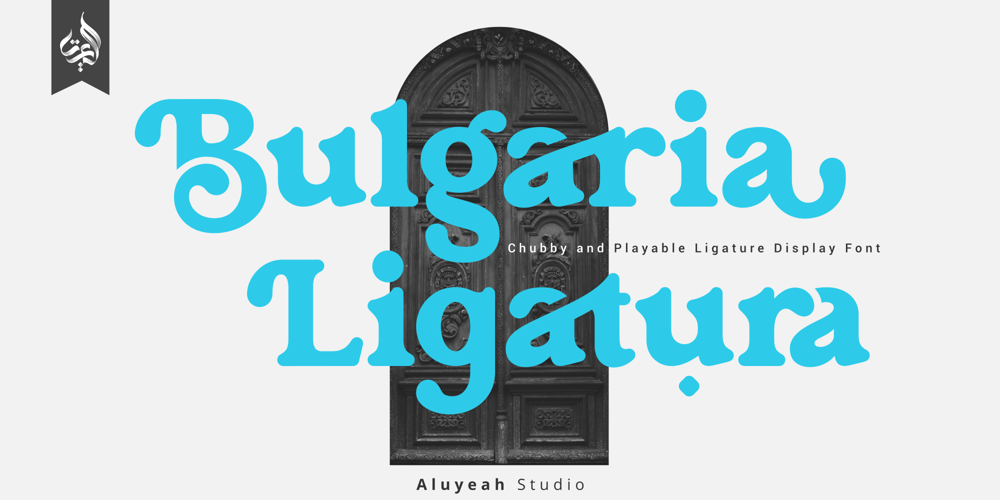
Al Bulgaria Ligatura Font Family was designed by Linggar Sundoro and published by Aluyeah Studio. Al Bulgaria Ligatura contains 1 styles and family package options. Hello Aluyeaholics!The Bulgaria Ligatura is a stunning display font that features beautifully crafted ligatures and alternates that provide a visually captivating effect, that will elevate your design to new heights. Coming with 200+ stunning and super easy to use alternates and ligatures with quick access.Super Easy to Use – Quick access combination like B.2 a.3 u.4 r.a c.m etc (more on images preview). To get results like the preview just type B.4u.4lga.ria.3 L.2iga.tu.4r.a